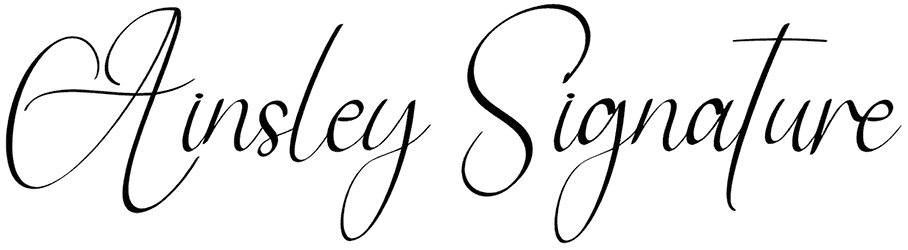
Signatures Font
The script font known as Signatures is an excellent choice for creating a more natural atmosphere for your audience, even though it is a little bit unreadable.
Designed by: Gado Gado